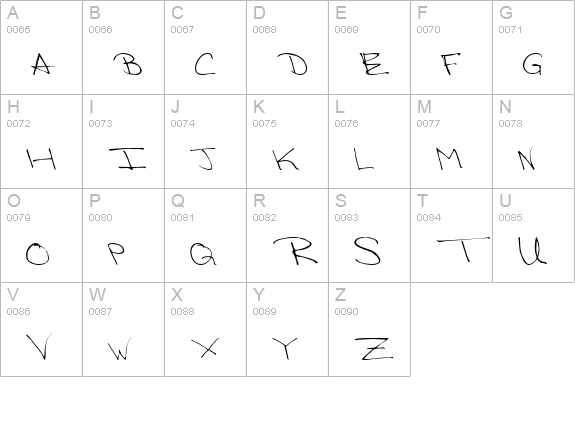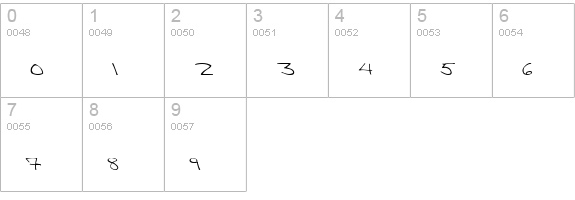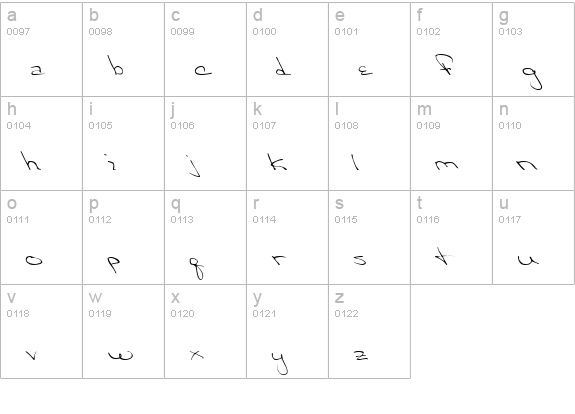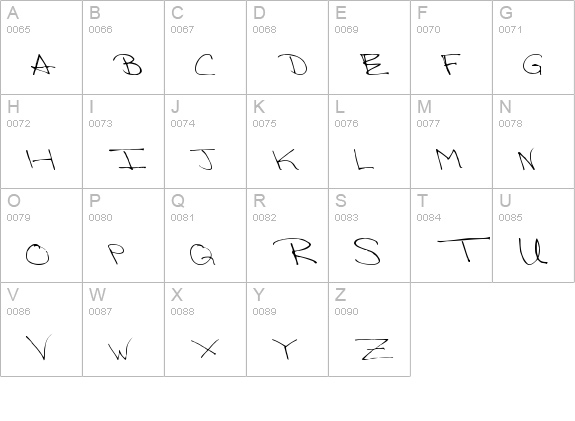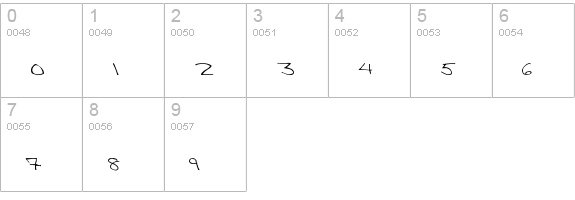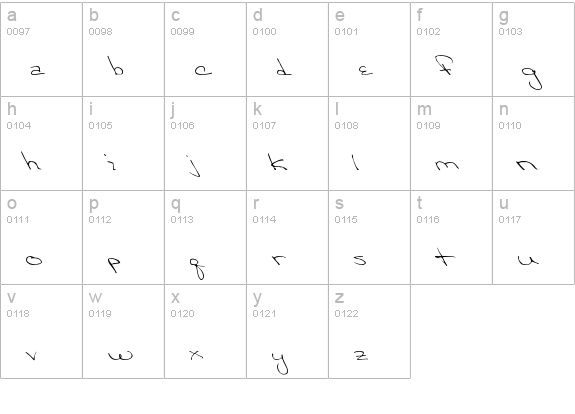
Victorias Secret Font Details
Introducing the captivating and alluring Victoria's Secret font, a one-of-a-kind typeface that exudes elegance and sophistication. Inspired by the iconic lingerie brand, this font embodies the essence of femininity and empowerment, making it the perfect choice for any design project that aims to evoke sensuality and allure. With its curvaceous letterforms and delicate strokes, Victoria's Secret font commands attention and leaves a lasting impression. Each letter is meticulously crafted to reflect the brand's distinctive style, showcasing a harmonious balance between boldness and grace. Whether used in fashion editorials, branding materials, or social media campaigns, this font effortlessly sets the stage for an unforgettable visual experience. And the best part? Victoria's Secret font is freely available to download at FontsMarket.com. This means that designers, creatives, and enthusiasts alike can enjoy the beauty and versatility of this font without any restrictions. Imagine the endless possibilities that await you, as you infuse your projects with a touch of Victoria's Secret's allure. So, whether you're looking to add a touch of elegance to your next design venture or seeking to create an unforgettable brand identity, Victoria's Secret font is the perfect choice. With its seamless blend of sophistication and sensuality, this font is bound to captivate your audience and elevate your creative endeavors. Dive into the world of Victoria's Secret font and let your imagination run wild.